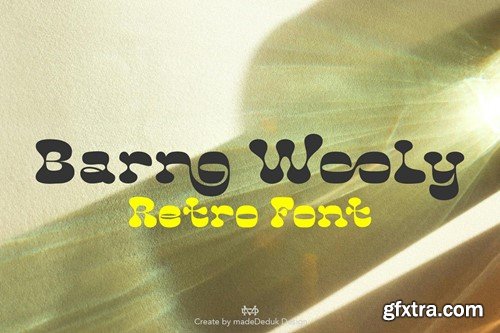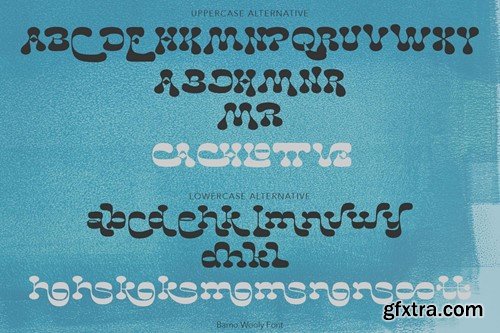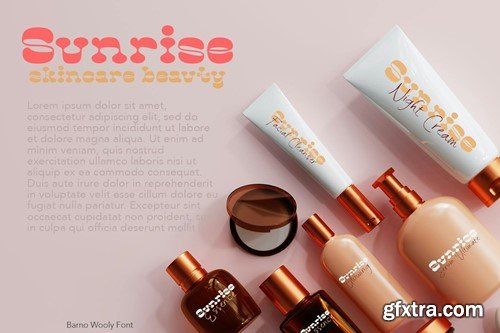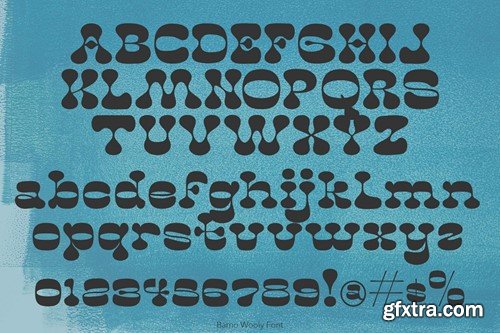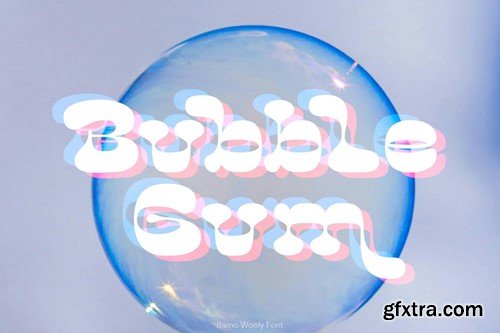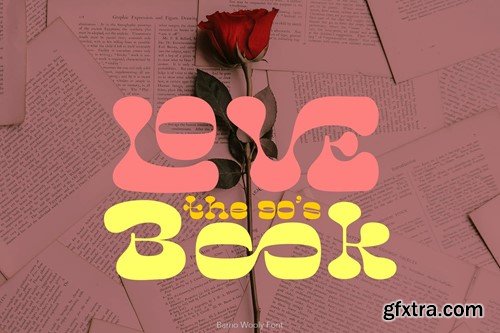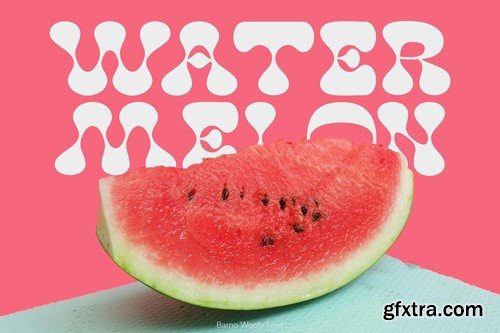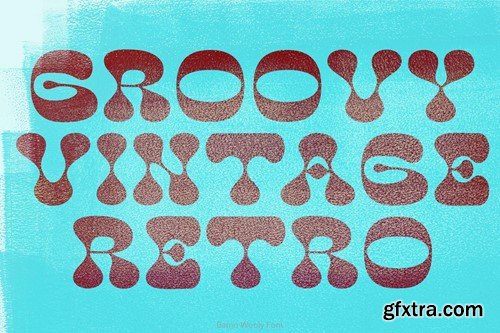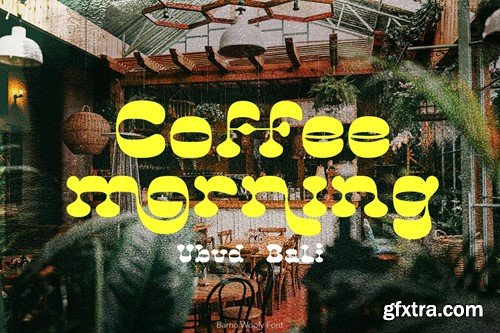
Barno Wooly Retro Font
Hello I'm really excited to introduce Barno Wooly designed to become a groovy and vintage, this font has the potential to bring each of your creative ideas to the highest level. Combine with ligatures and special alternative glyphs so you can create a lots with layouts and compositions. Barno Wooly brings a touch of 60's and 70's era bespoke custom typography to logos, websites, social media quotes, wedding branding, and more. Feature Feel free to drop us a message any time and follow my shop for upcoming updates Hope you enjoy it.